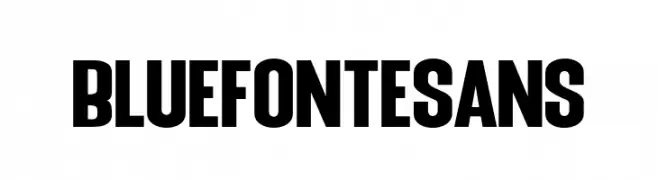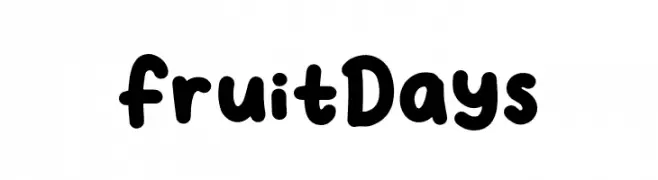
A bold, modern font with strong lines and wide spacing.
A bold, playful font with rounded, whimsical characters.
A playful, bold font with rounded, bubbly characters and a hand-drawn feel.
A playful, bold font with rounded, thick letterforms and a whimsical style.
A bold, playful script font with flowing, connected letters and medium contrast.
A casual, handwritten font with smooth, flowing curves and a natural, organic feel.
A playful, bold font with rounded, thick characters for a fun and approachable style.
A playful, spooky font with hand-drawn, uneven letters and quirky angles.
A sleek, italicized font with elongated, condensed letterforms and medium contrast.
A modern, tall, and narrow sans-serif font with a sleek design.